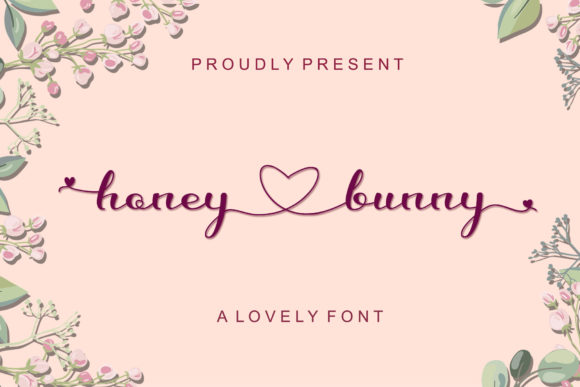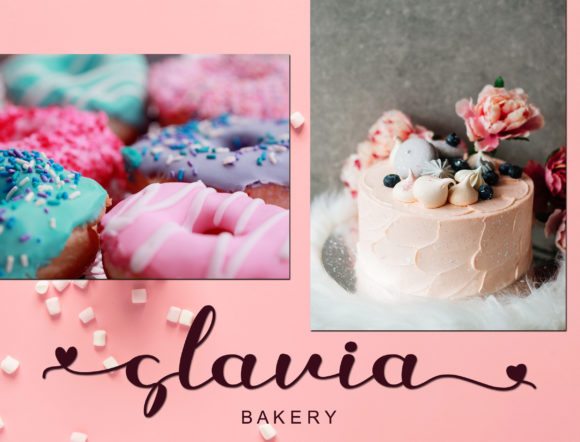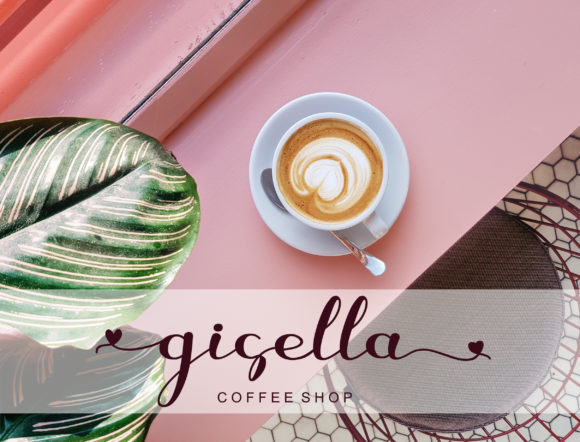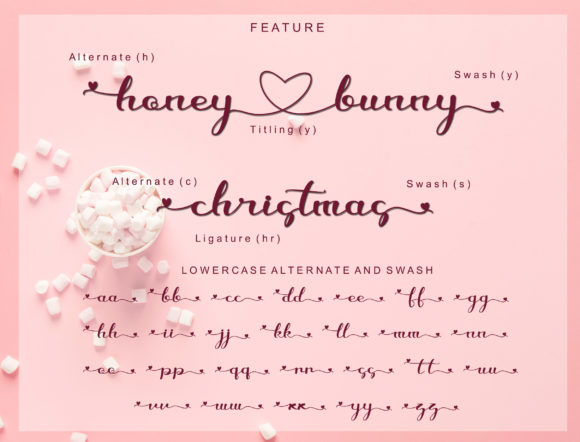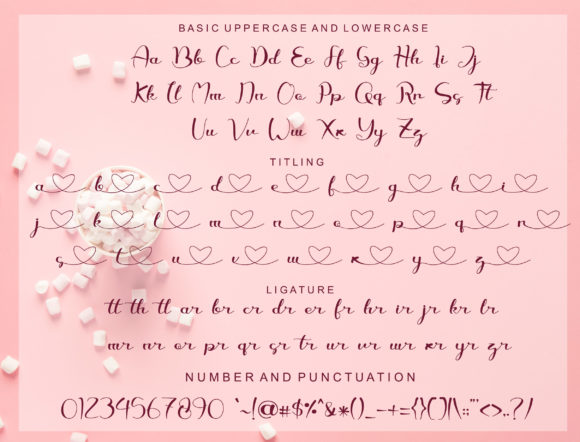
About Honey Bunny Font
Honey Bunny is a modern script font that is readable, friendly and stylish. It is defined by smooth curves and is perfect for fashion branding or editorial designs. Honey Bunny is PUA encoded which means you can access all of the glyphs and swashes with ease!